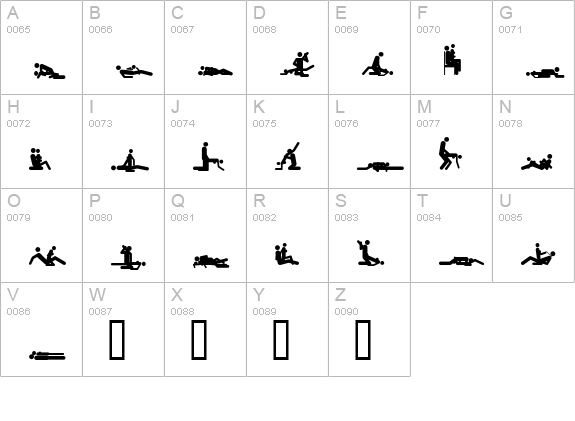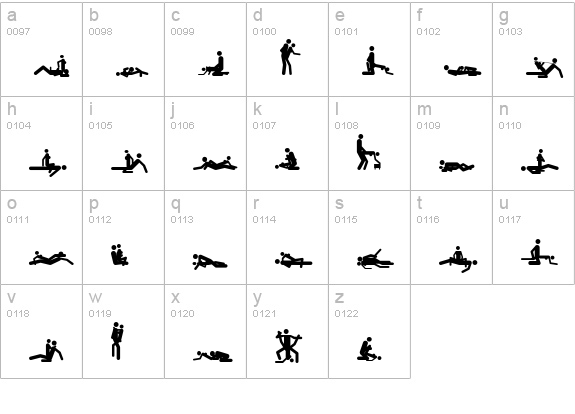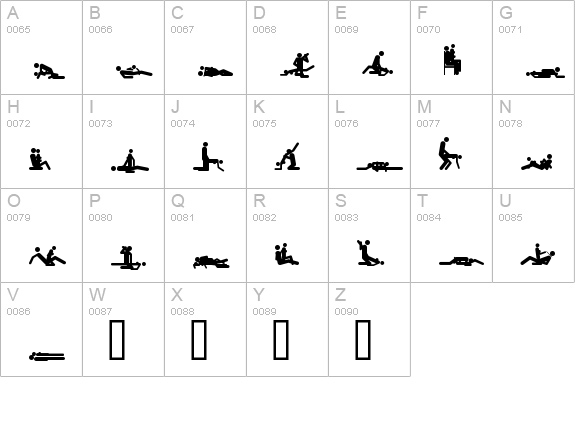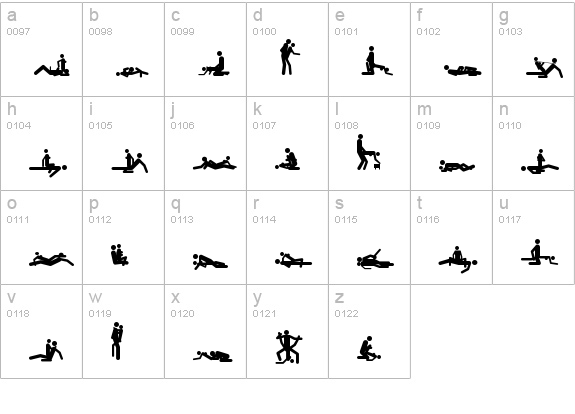
48ways Font Details
The 48ways font is a stunning and versatile typeface that is sure to make your designs stand out. With its elegant curves and clean lines, this font exudes sophistication and style. Whether you're working on a branding project, designing a website, or creating a flyer, the 48ways font will add a touch of class to your work. The best part? This amazing font is available for free! You can easily download the 48ways font at FontsMarket.com and start using it in your projects right away. Don't miss out on this fantastic opportunity to enhance your designs with a high-quality, professional font that won't cost you a penny. Download the 48ways font today and take your designs to the next level!